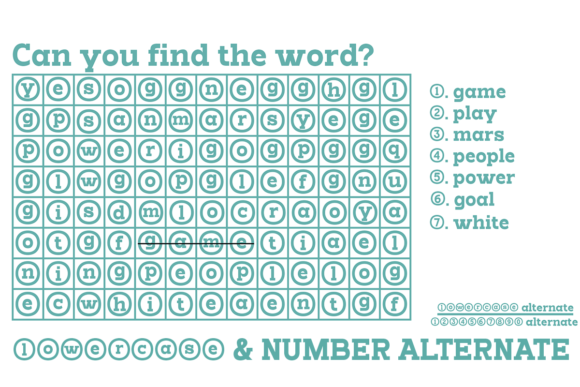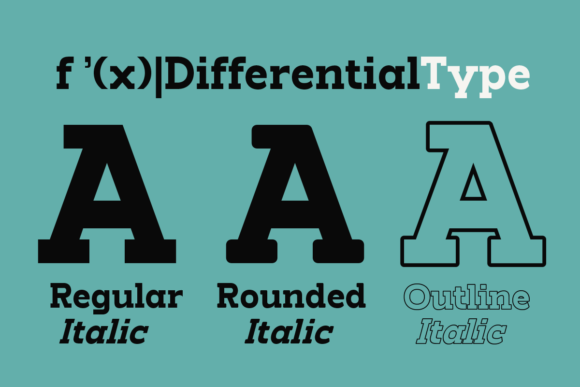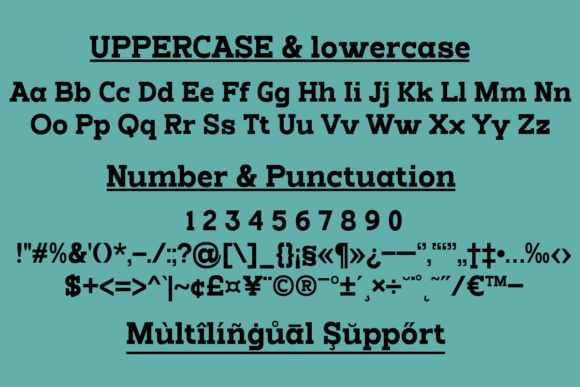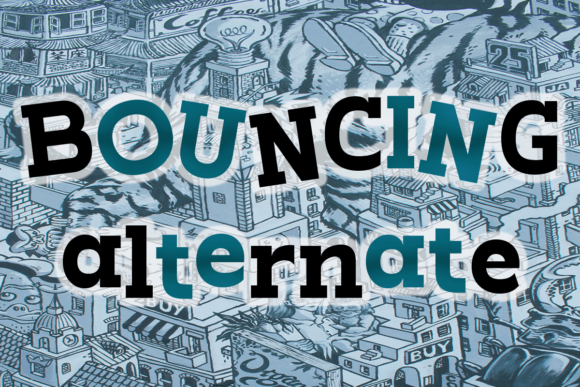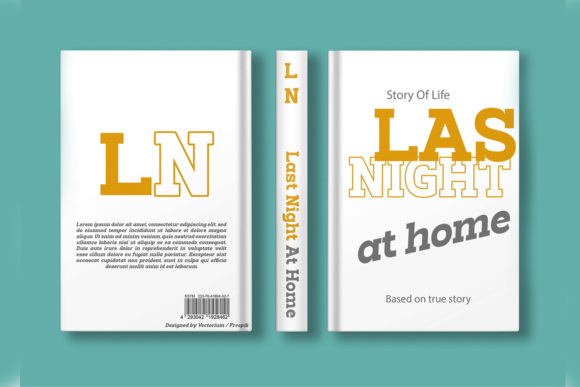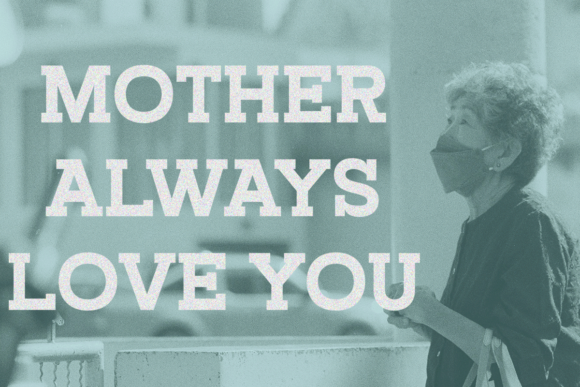
Introduction to Faizer Font Font
Fonts play a crucial role in design, and the Faizer Font font is a typeface that brings both character and versatility to any project. Whether you’re working on a branding project, a website, or a print design, the Faizer Font font offers a unique style that can elevate your work.
Faizer is a cool, bold and thick lettered slab serif font.
Key Features of Faizer Font Font
Why Choose Faizer Font Font?
The Faizer Font font is more than just a typeface – it’s a design tool that helps you communicate your message with style and clarity. Its unique character set and versatile design make it suitable for a wide range of applications, from elegant invitations to bold headlines.
With its carefully crafted letterforms and balanced proportions, the Faizer Font font ensures readability and visual appeal across all mediums.
What makes Faizer Font font special?
The Faizer Font font stands out with its unique design, exceptional readability, and versatility across various design applications.